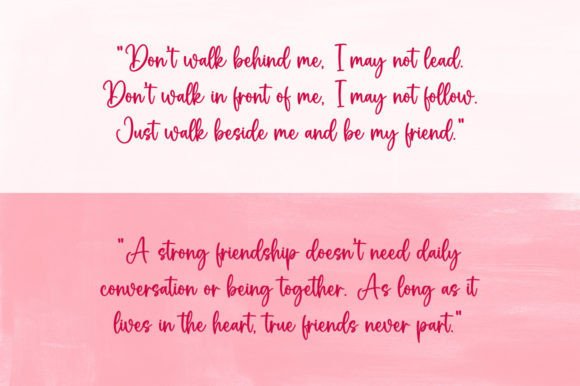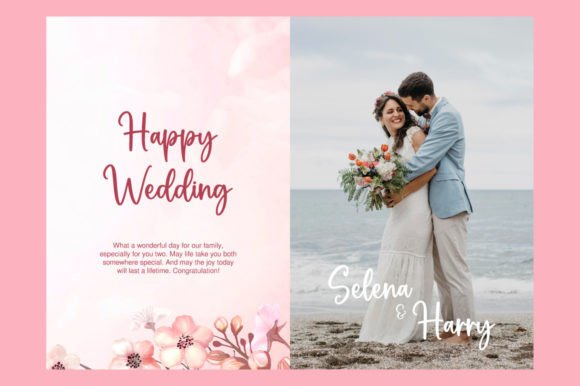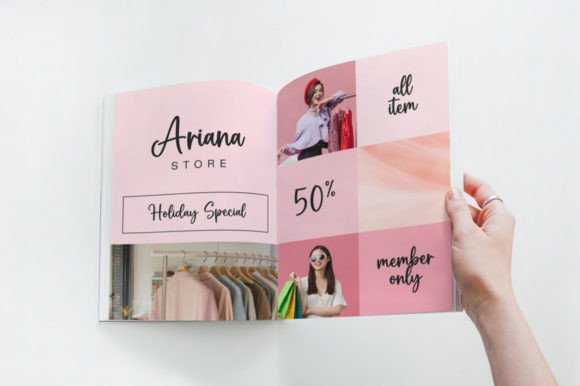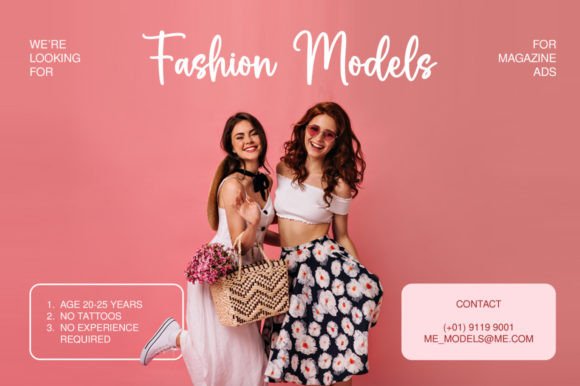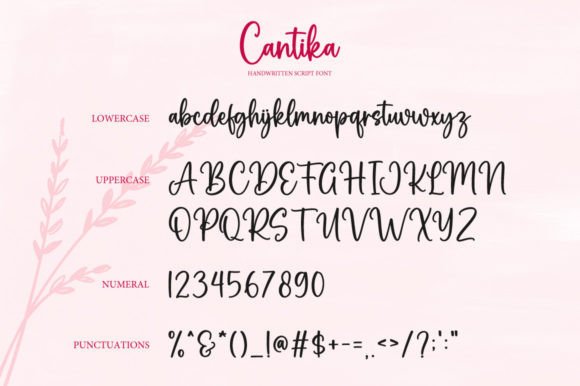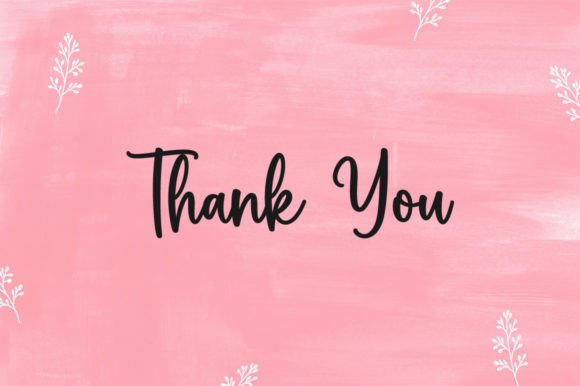
The Birth of a Beautiful Design
There’s something magical about the moment when an idea strikes, and you know exactly what you want to create. Maybe it’s a logo that screams your brand’s personality, or a quote that speaks directly to your audience’s heart. Whatever it is, that spark of creativity is what drives us as designers to push the boundaries of what’s possible.
For those moments when elegance and whimsy come together, there’s the Cantika Font – a timeless handwritten font that’s perfect for making a lasting impression. With its flowing lines and charming character, Cantika Font is the ideal choice for creating eye-catching logos, branding, and quotes that resonate with your audience.
As a designer, you know how valuable it is to have the right tools at your disposal. The Cantika Font is more than just a font – it’s a key to unlocking your creativity and bringing your vision to life in a way that’s both beautiful and effective.
Cantika Font Key Features
- Font Size: The font family consists of multiple weights, ranging from 100 to 900, providing a wide range of options for designers to choose from.
- Unique Characteristics: Cantika Font features a unique blend of traditional and modern elements, making it an excellent choice for projects that require a touch of elegance and sophistication.
- Language Support: Cantika Font supports a wide range of languages, including Latin, Cyrillic, and Greek alphabets, making it an ideal choice for multilingual projects.
- Font Family: The font family consists of 24 styles, including regular, bold, italic, and bold-italic, providing designers with a comprehensive set of options to choose from.
Cantika Font Review
Overall, I think the Cantika Font is a solid choice for designers looking for a unique, elegant font. ✨ It’s perfect for creating a sophisticated and refined atmosphere in any project.
- The Cantika Font has a beautiful, flowing script that makes it ideal for titles, headings, and other display text. ✨
- It’s highly legible, even at smaller font sizes, making it suitable for body text and other longer passages. ✨
- The font is highly customizable, allowing designers to adjust the weight, spacing, and other parameters to suit their project’s needs. ✨
- The Cantika Font may not be the best choice for projects that require a bold, attention-grabbing font. ⚠️
- It may not be suitable for projects that require a lot of text to be displayed in a small space, as the font’s flowing script can make it difficult to read. ⚠️
Overall, I would recommend the Cantika Font to designers who want a elegant, sophisticated font for their projects. It’s a solid choice, but may not be the best fit for every project.
Tips for Getting the Most Out of Cantika Font
Use Cantika Font for creative projects that require a unique and elegant touch.
Combine it with other fonts to create a visually appealing contrast.
Cantika Font is ideal for:
Branding and marketing materials.
Artistic and creative projects.